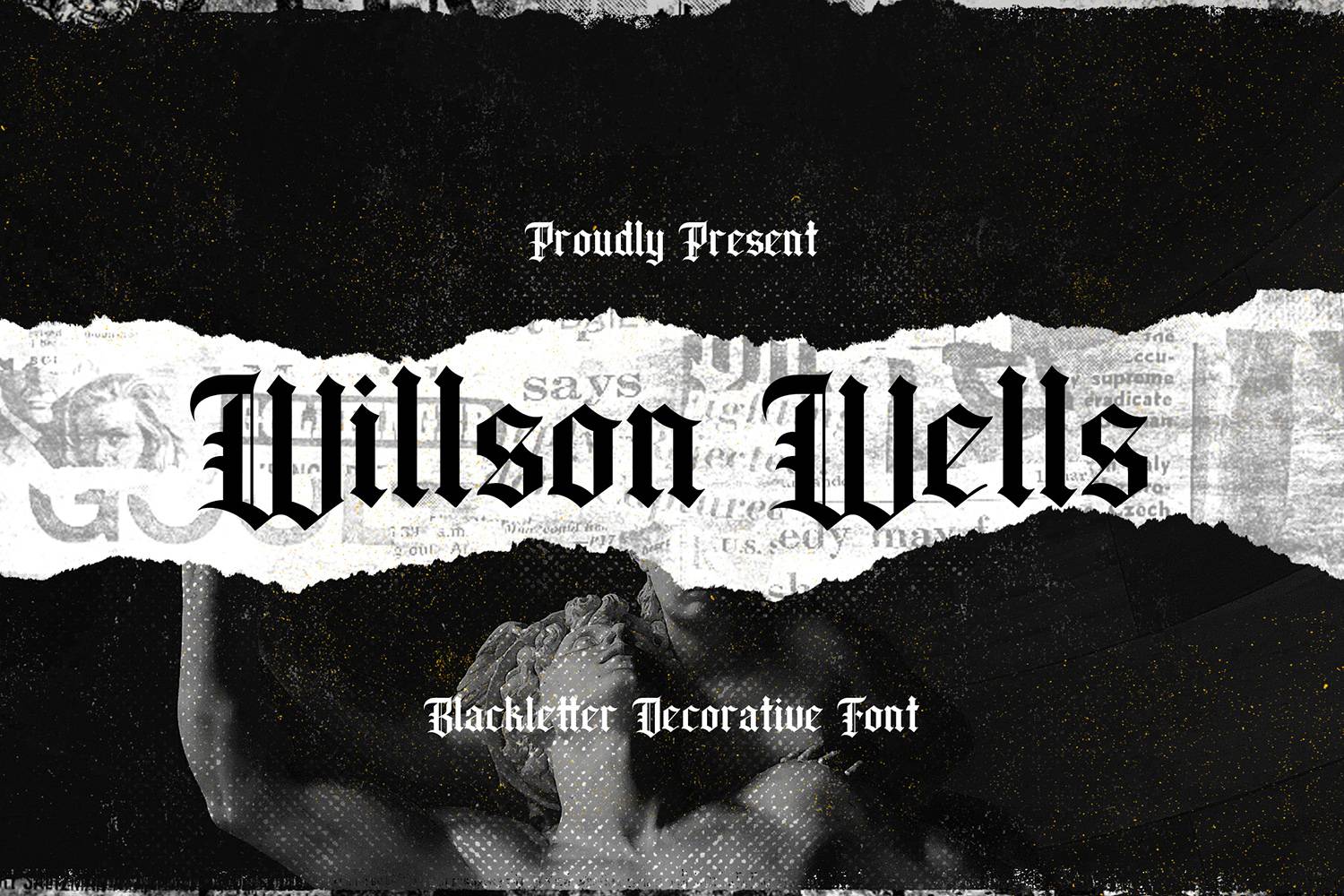
Wilson Wells is a bold blackletter serif font with sharp, angular strokes and a classic Gothic appearance. Its strong contrast and intricate letterforms give it a historic, formal vibe perfect for vintage branding, logos, or headlines that need a dramatic, old-world touch. This font works best where a distinctive, authoritative style is desired, adding a sense of tradition and bold character.
Wilson Wells Font
About Wilson Wells Font
| Font family | Wilson Wells Font |
| Designer | Stringlabs |